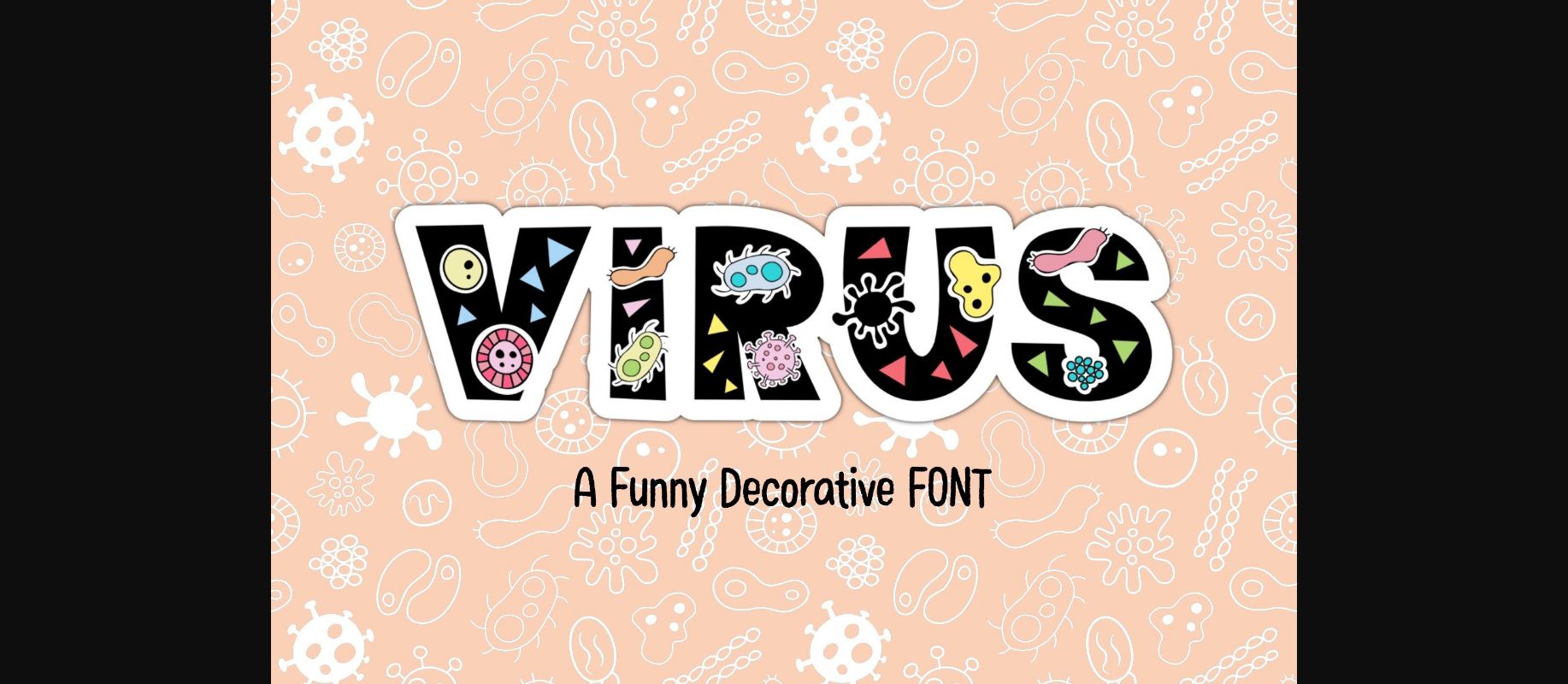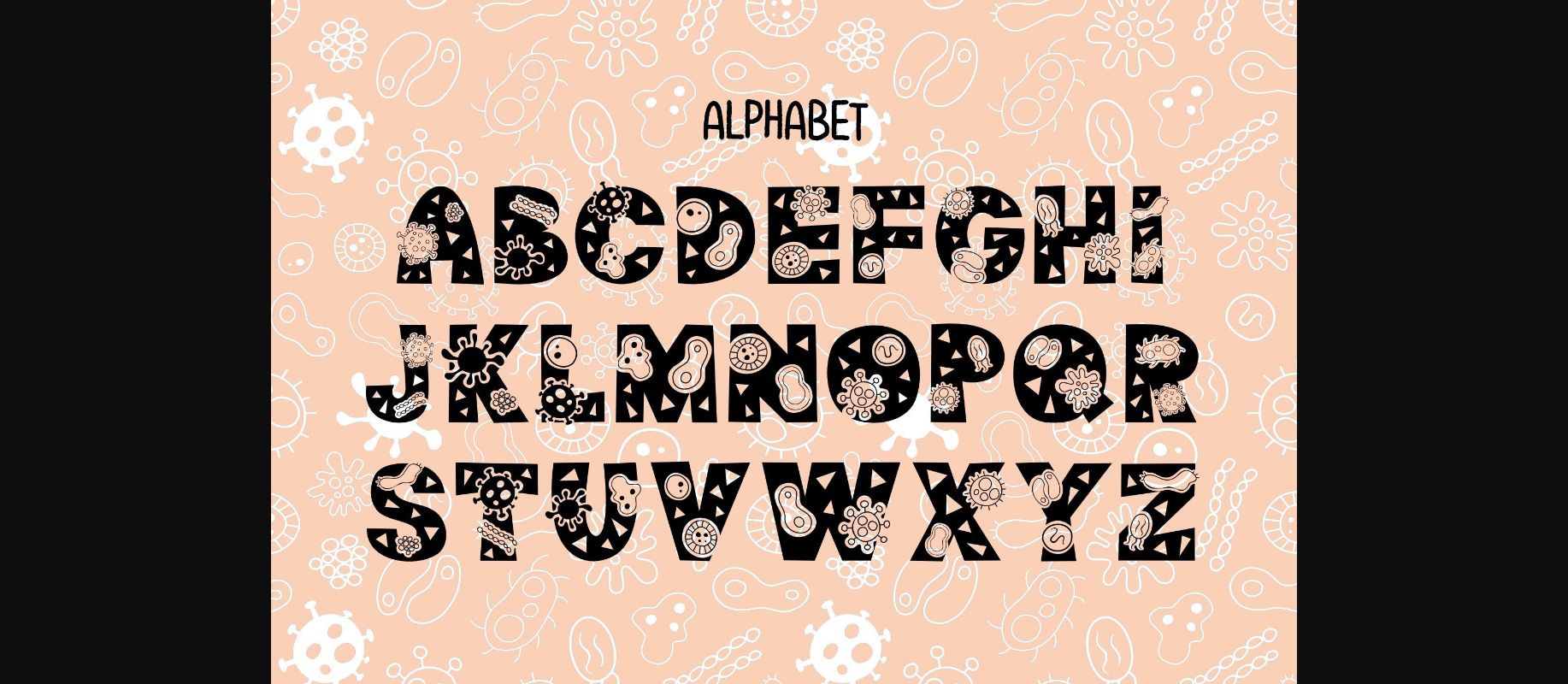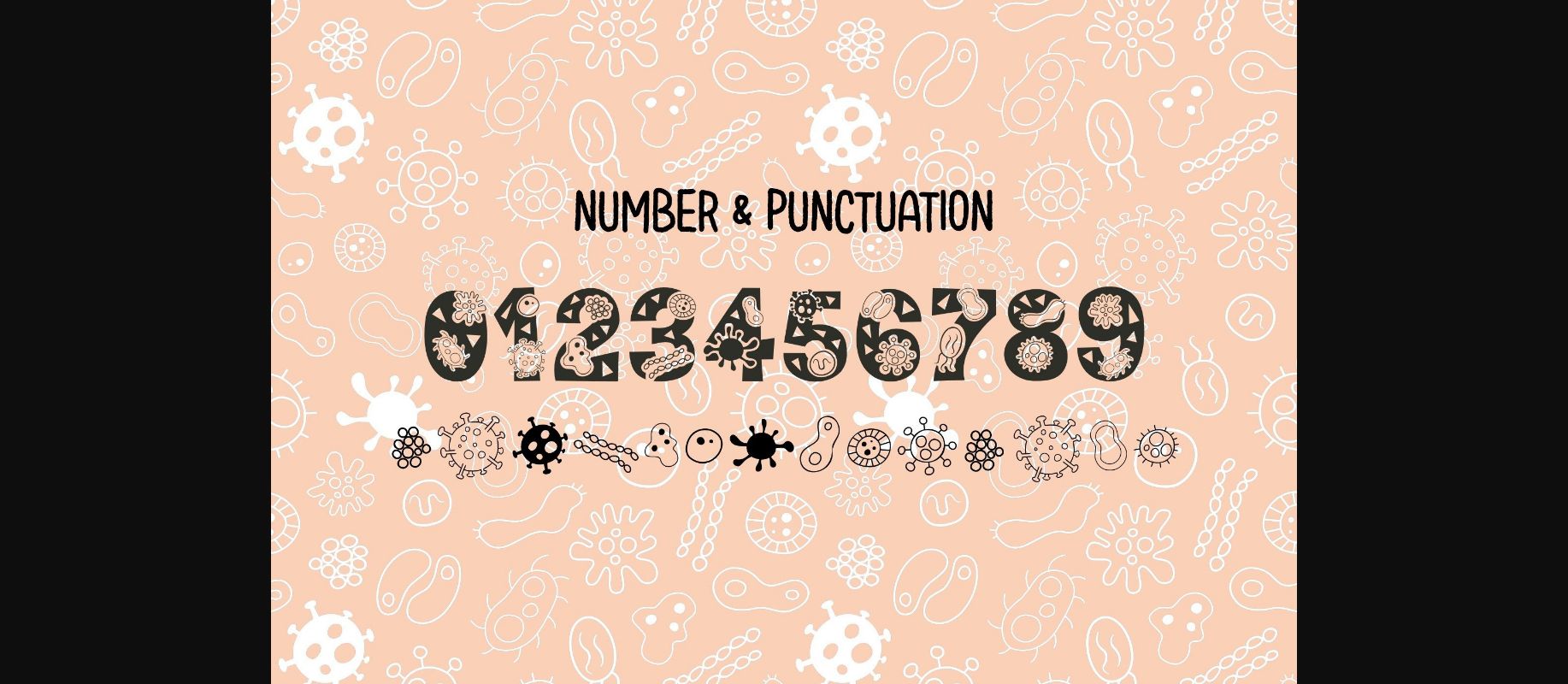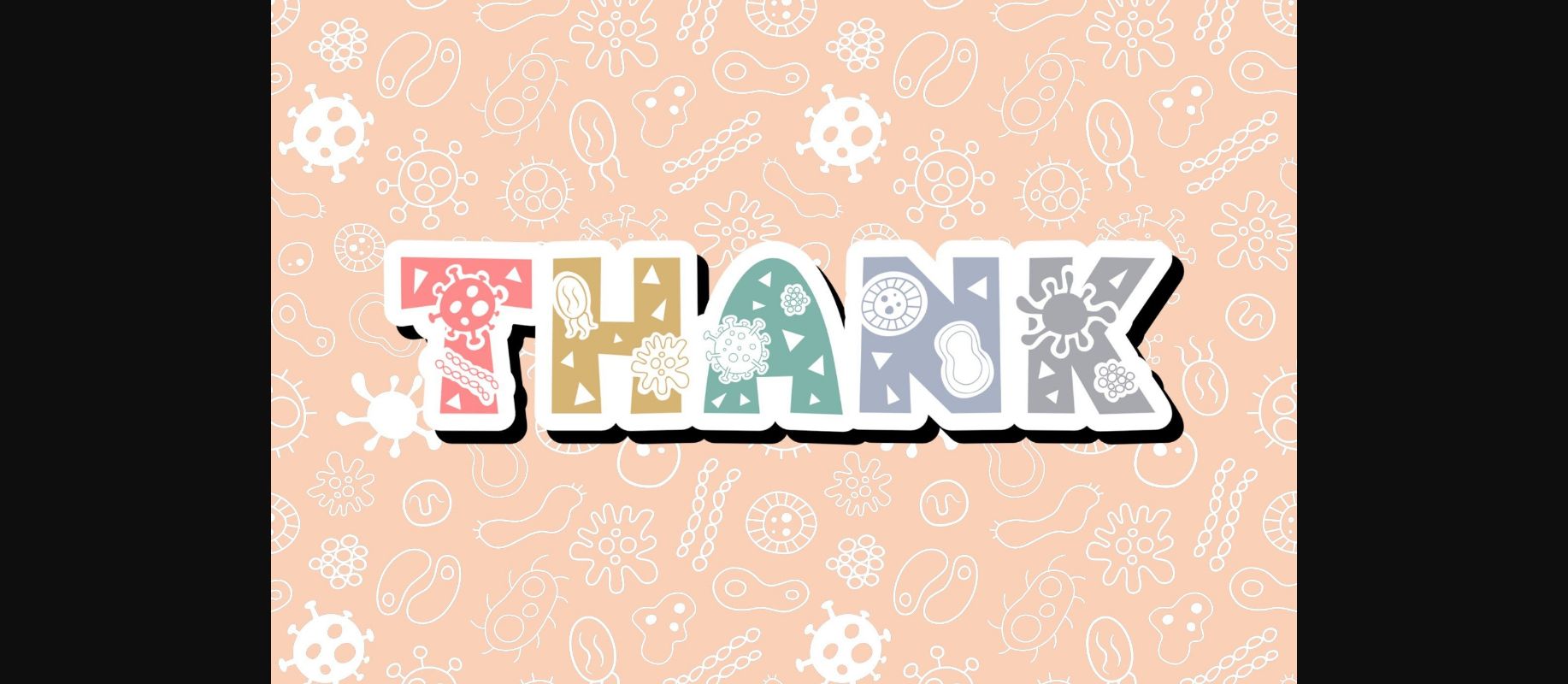
HomeDecorative FontsVirus Font Decorative Fonts Virus Font FacebookXPinterestWhatsApp 1 of 7 ... Virus Font Poster 2... Virus Font Poster 3... Virus Font Poster 4... Virus Font Poster 5... Virus Font Poster 6... Virus Font Poster 7... About Virus Font Virus is a Decorative font. This font is the perfect fit for all of your logos, branding, social media, crafty DIY projects, and much more! DOWNLOAD NOW People also explored Gold Empire Font Jelly Drink Font YWFT Chateau Alesantria Mane Font Hafizah Font Viktoria Monogram Font Font Sahida Font Middle Easter Font Cheetatos Font 351 0 TagsVirusVirus Font Previous articleCactus Garden FontNext articleChunkie Duo Font LEAVE A REPLY Cancel reply Comment: Please enter your comment! Name:* Please enter your name here Email:* You have entered an incorrect email address! Please enter your email address here Website: Save my name, email, and website in this browser for the next time I comment. Personal Use Free Densmore Personal Use Free Read more about this font Feather Script Personal Use Free Read more about this font Screengem Personal Use Free Read more about this font Deling Personal Use Free Read more about this font BLOG Using Fonts in Digital Marketing: Tips to Strengthen Your Brand Identity In the realm of digital marketing, every visual element plays a crucial role in shaping a brand's identity, and fonts are no exception. The... How to Install and Use Fonts on Windows, macOS, and Web Projects Fonts That Capture the Spirit of New York City Best Fonts for YouTube Videos: Make Your Thumbnails Stand Out